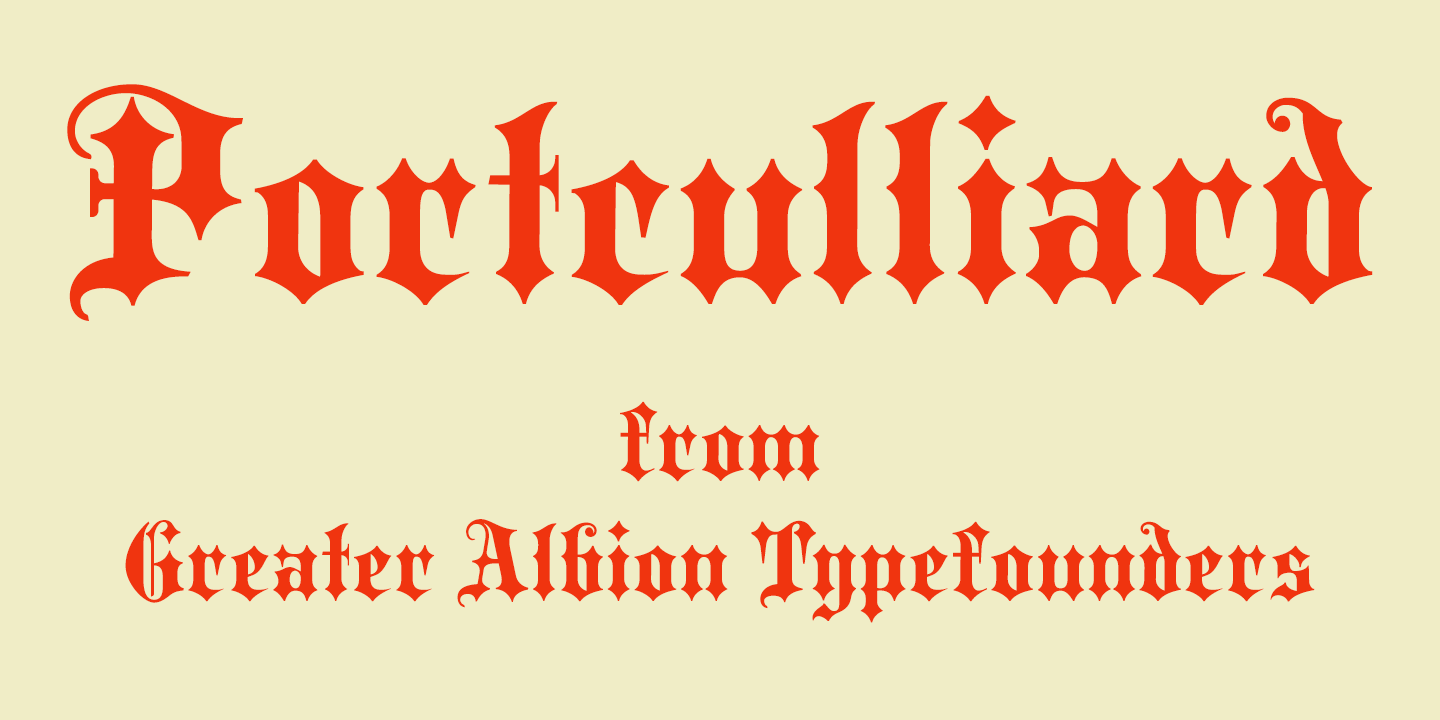
Portculliard Font is perfect for medieval castle tourism branding, historical fortress museum exhibits, ancient stronghold preservation society communications, medieval festival promotional materials, fortress architecture firm presentations, defensive structure documentation, heritage castle restoration projects, medieval knight entertainment venues, ancient fortification educational materials, and distinguished medieval heritage marketing campaigns.
What makes Portculliard Font so exciting is its extraordinary ability to capture the impenetrable strength and majestic authority of medieval fortifications through powerfully constructed letterforms that seem carved from the same granite blocks that built the world's most legendary castles and blessed with the kind of architectural permanence that has withstood centuries of siege and storm while protecting the treasures within. This font embodies the essence of medieval defensive mastery and fortress engineering, featuring boldly structured characters that appear designed according to the same principles that created impregnable castle walls and mighty portcullises that could defend against any assault. The monumentally crafted letter shapes create an atmosphere of medieval grandeur and defensive authority, making every word feel like it carries the weight of castle stones and the promise of protection that has sheltered kingdoms and preserved civilizations through the darkest periods of history.
The Portculliard Font family includes Light, Regular, Medium, Bold, and Heavy variations, along with medieval symbols and fortress-inspired decorative elements. Each style maintains the font's distinctive castle character while offering versatility for different medieval applications, from gentle historical documentation to commanding fortress headlines that announce the enduring strength of medieval architecture and defensive engineering.
This majestic typeface brings authentic medieval fortress aesthetics to contemporary design projects. The Portculliard Font Free Download offers designers an invaluable resource for creating memorable brand identities that communicate strength, historical authority, and medieval authenticity. Whether you're developing castle tourism branding, designing medieval heritage materials, or creating fortress preservation communications, this font delivers unmatched medieval credibility and architectural appeal.
The masterfully crafted letterforms in Portculliard Font feature substantial proportions and defensive structures that mirror the engineering brilliance of medieval castle builders who understood that every stone must serve both defensive necessity and architectural beauty. Each character has been designed to maintain perfect readability while expressing the impregnable strength and medieval craftsmanship that define the world's greatest fortress architecture. The font's distinctive personality makes it ideal for applications requiring genuine medieval authority and castle heritage appeal.
Heritage preservation and medieval tourism professionals appreciate how Portculliard Font effortlessly communicates historical authenticity, architectural strength, and medieval excellence while appealing to visitors and scholars seeking genuine medieval experiences that honor both the defensive genius and cultural significance of castle architecture. The comprehensive character set includes medieval symbols, fortress decorations, heraldic elements, and extensive international language support, ensuring global compatibility while preserving its distinctive portculliard identity. This makes it an invaluable resource for castle museums, heritage sites, medieval entertainment venues, and any organization seeking typography that embodies the fundamental medieval values of strength, protection, and the kind of architectural permanence that created fortifications capable of defending entire civilizations while serving as centers of culture, learning, and artistic achievement that remind us that the greatest castles were not merely military installations, but complete communities designed to preserve and nurture the best of human civilization within walls strong enough to protect against any threat, creating safe havens where knowledge, art, and culture could flourish even during the most turbulent periods of medieval history.